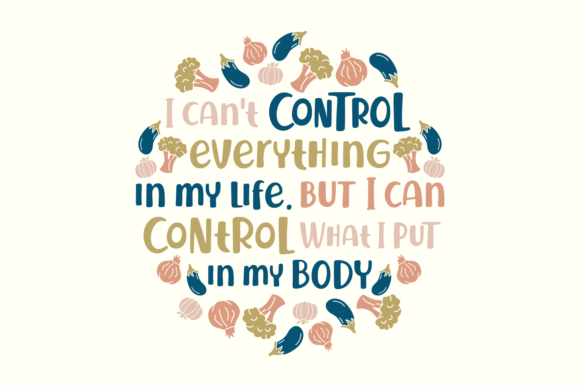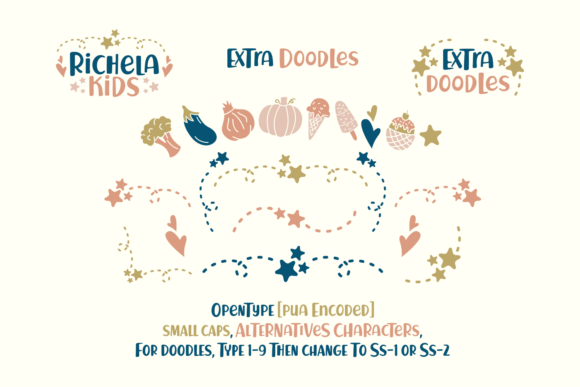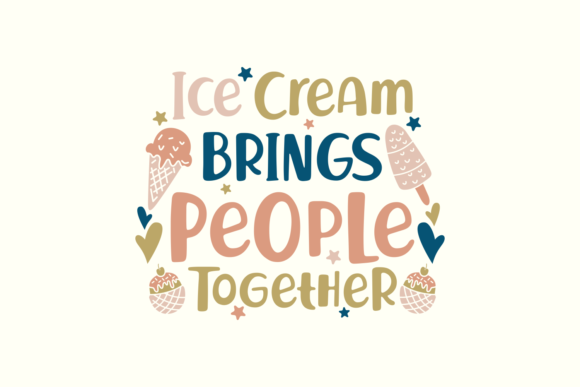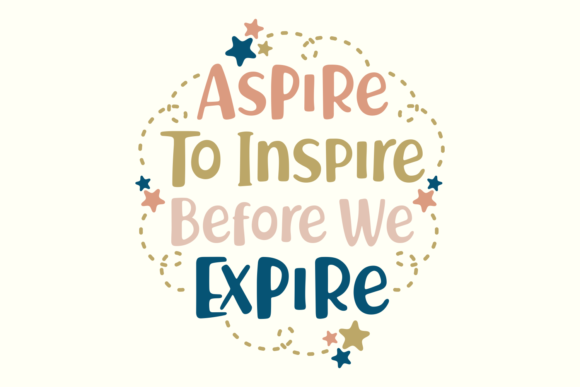
Introduction to Richela Kids Font
Who hasn’t been stuck at a crossroads, trying to decide on the perfect font for their creative project? The struggle is real, but the good news is that we’ve got you covered. As a designer, you know the importance of choosing a font that sets the tone for your entire design, and that’s where Richela Kids Font comes in.
This adorable script font is a game-changer for any creative project, offering a unique blend of lowercases and uppercases that add a touch of whimsy and fun to your design. With its smooth letters and transparent background, Richela Kids Font is the perfect design resource for anyone looking to add some personality to their work.
Key Features of Richela Kids Font
- High-quality design: This font is designed with a high level of detail, ensuring that it looks great in various creative projects.
- Unique, playful design: Richela Kids Font features a unique, playful design that is perfect for creative projects, such as children’s books, educational materials, and more.
- Perfect for educational projects: The font’s playful design makes it an excellent choice for educational projects, such as worksheets, posters, and other materials for kids.
Honest Review: Richela Kids Font
I recently stumbled upon the Richela Kids Font and I must say it’s been a delight to work with. This high-quality font is perfect for any creative project that requires a fun and playful touch.
- What works well: ✨ The font has a transparent background, making it easy to use on any design surface. The character set is also extensive, covering a wide range of languages and special characters.
- ⚠️ The font may not be suitable for projects that require a professional or formal look. The playful nature of the font may not fit the tone you’re trying to convey.
- ⚠️ The font is not available in as many weights as some other fonts, which may limit your design options.
Overall, I’m impressed with the Richela Kids Font and would recommend it to anyone looking for a fun and high-quality design resource. It’s perfect for kids’ projects, creative portfolios, and any other design that requires a playful touch.
The Richela Kids Font is perfect for creating high-quality designs for children’s products, educational materials, and creative projects. It’s also great for adding a playful touch to your branding and marketing materials.
To get the most out of the Richela Kids Font, make sure to use it in a high-quality design context. You can also experiment with different font combinations and styles to create a unique look. Additionally, consider using the font with a transparent background for a seamless integration with your design.